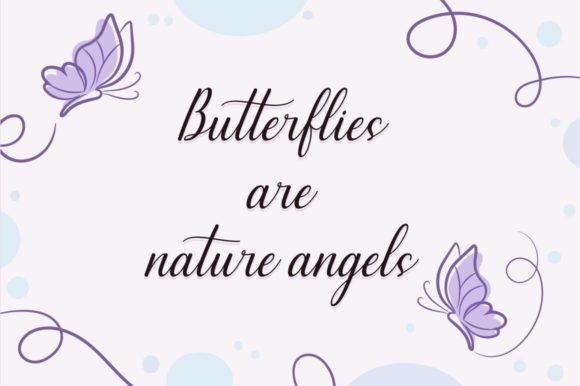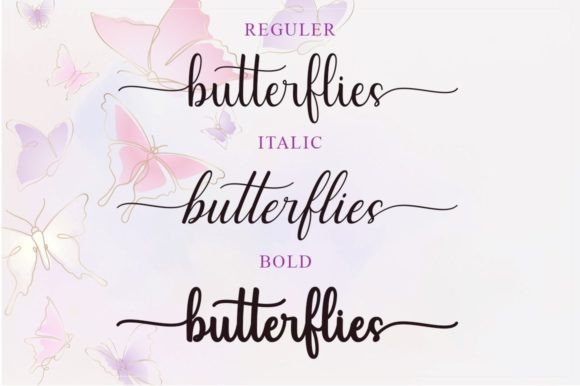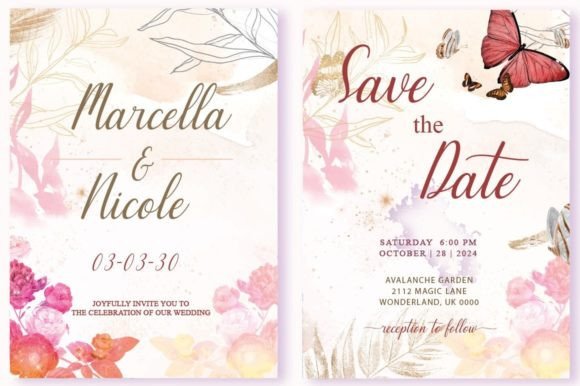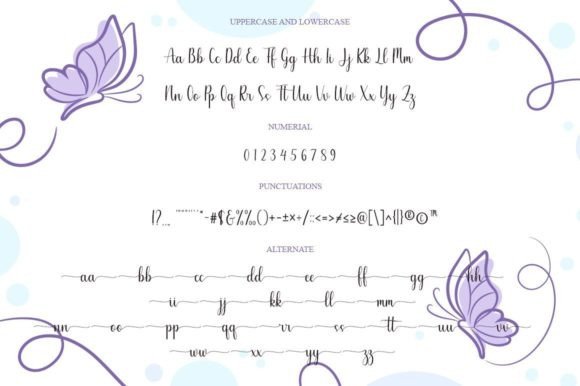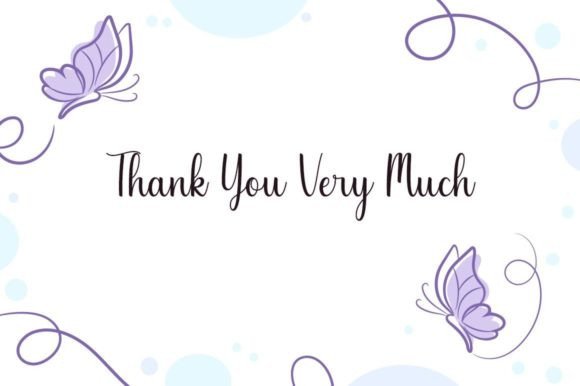
Getting Lost in the Beauty of Handwritten Typography
Do you ever find yourself getting lost in the world of typography, searching for the perfect font to bring your design to life? I know I do. Sometimes, it’s not just about finding a font that gets the job done, but about discovering one that speaks to your soul. For me, that font is often a beautiful, elegant, and flowing handwritten font that adds a touch of whimsy to any design.
Enter the enchanting Butterflies Font, a delicate and charming typeface that’s perfect for designers looking to add a touch of romance and sophistication to their work. With its well-balanced characters and beautiful swashes, this font is a versatile choice that’s sure to elevate any design project. Whether you’re working on a wedding invitation, a fashion brand, or a children’s book, the Butterflies Font is sure to bring a smile to your face and a touch of magic to your design.
Key Features of Butterflies Font
- Unique Characteristics: The Butterflies Font features beautiful, hand-drawn illustrations of butterflies, adding a touch of whimsy and elegance to any design.
Butterflies Font Review
Overall, I’m impressed with the whimsical charm of the Butterflies Font. ✨ The unique blend of hand-drawn and digital elements creates a captivating and playful atmosphere perfect for creative projects, such as children’s books or greeting cards.
The font’s best features include its:
- Delicate, flowing lines that evoke a sense of elegance and refinement
- Highly customizable options, allowing users to adjust the spacing, size, and color to suit their needs
- Wide range of languages supported, making it a versatile choice for international projects
- ⚠️ The font may be too ornate for formal or professional projects, where a more straightforward design is preferred
- ⚠️ Some characters may not be perfectly symmetrical, which could affect readability in certain contexts
While not perfect, the Butterflies Font is a beautiful addition to any designer’s toolkit. With its versatility and customizability, it’s sure to add a touch of magic to your projects. With some careful consideration of its limitations, this font can be a valuable asset in your design arsenal.
Tips for Getting the Most Out of the Butterflies Font
Use the Butterflies Font to add a whimsical touch to your designs.
Pair it with bold, bright colors to create a playful look.
Experiment with different font sizes and styles to add depth and interest.
The Butterflies Font is perfect for:
Children’s birthday invitations and party decorations.
Children’s book illustrations and educational materials.
Alternatives to Butterflies Font
Great Vibes is a beautiful, elegant script font that is perfect for creating a whimsical and romantic atmosphere. It features flowing lines and dynamic connections between letters, making it ideal for wedding invitations, quotes, and other decorative text.
Compared to Butterflies Font, Great Vibes has a more refined and sophisticated look, making it suitable for formal and upscale designs.
Carolyna Pro is a modern, elegant script font that is perfect for creating a sophisticated and luxurious atmosphere. It features fluid connections between letters and a subtle flair at the ends of strokes, making it ideal for high-end branding, advertising, and packaging.
Compared to Butterflies Font, Carolyna Pro has a more polished and refined look, making it suitable for corporate and high-end designs.